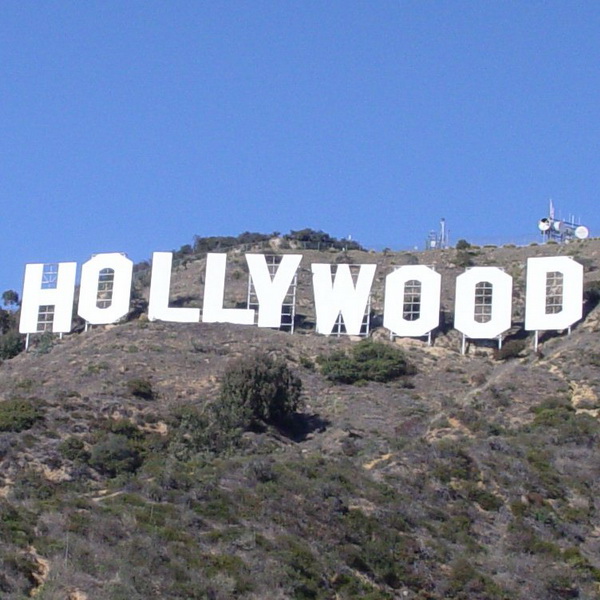
Hollywood Font
EntertainmentThe Hollywood sign is an iconic landmark located in the Hollywood Hills of Los Angeles, California. It originally read "Hollywoodland" and was built in 1923 as an advertisement for housing development.
Shyfonts created the SF Hollywood Hills font family, based on the Hollywood Sign's lettering. It consists of 8 variations and is available for free download only for personal use in the Fonts Used Section.